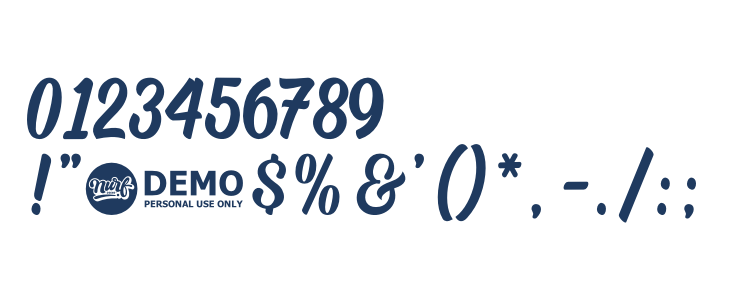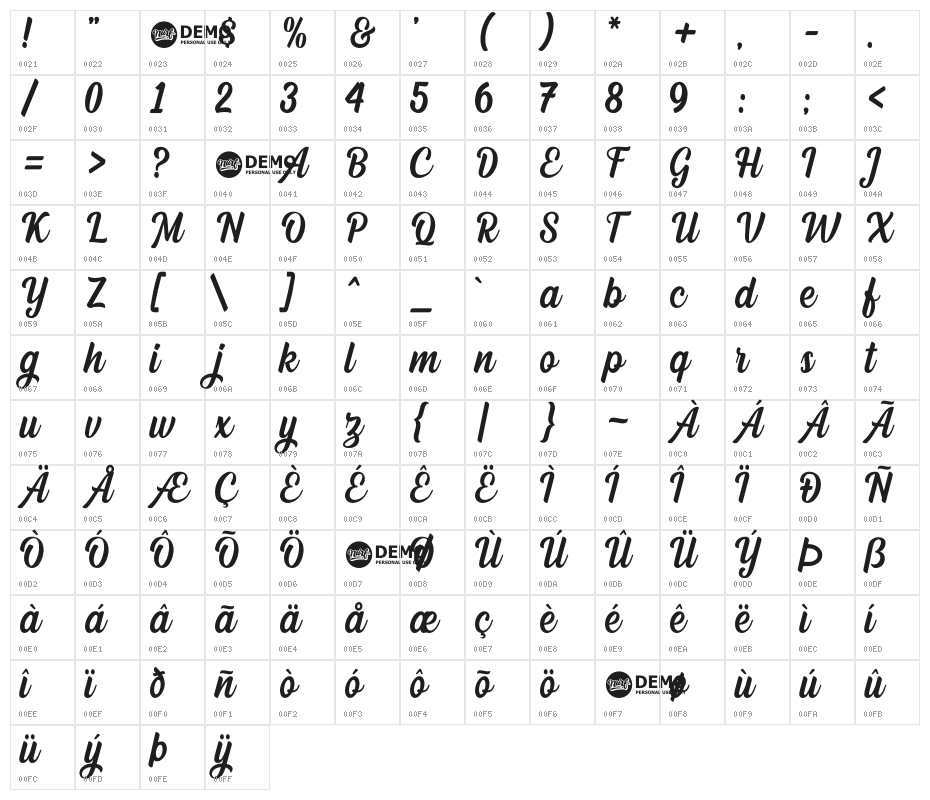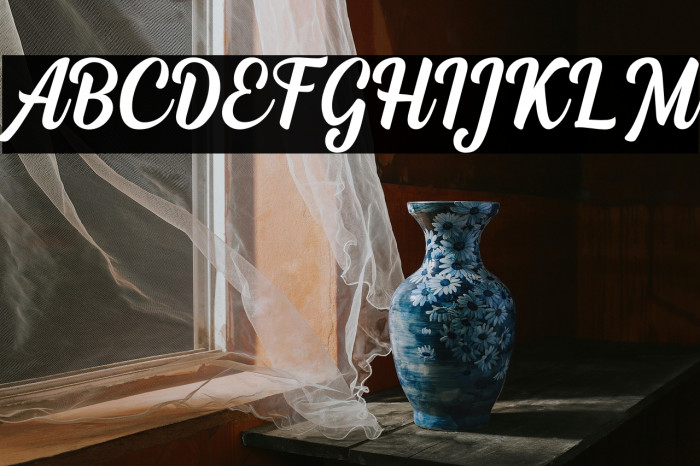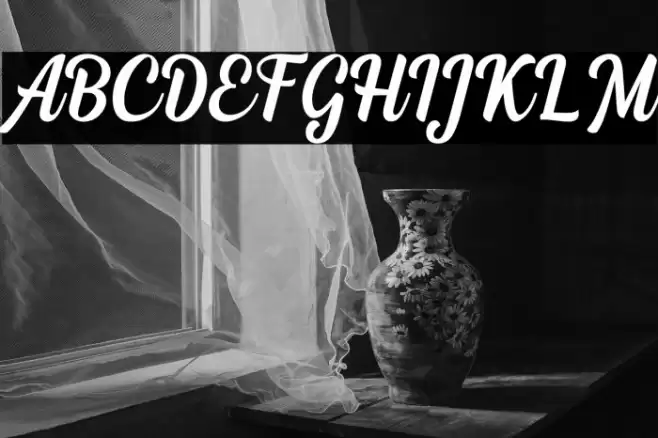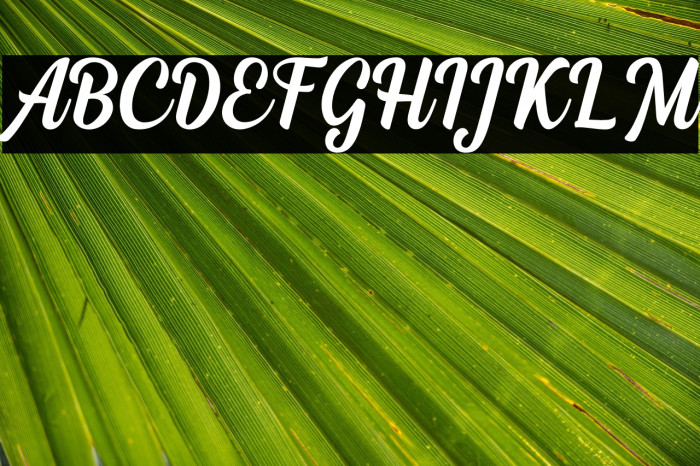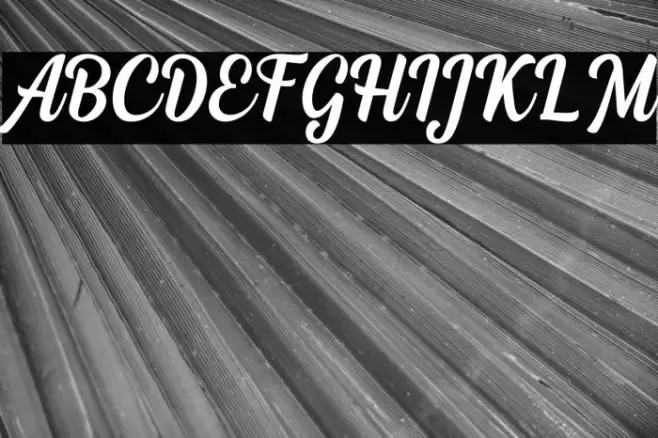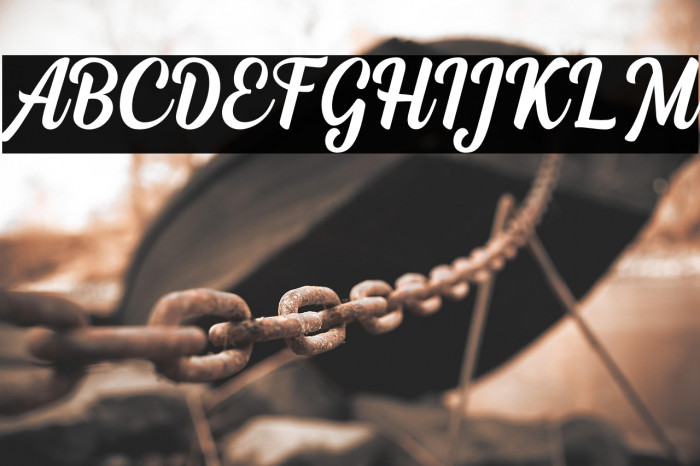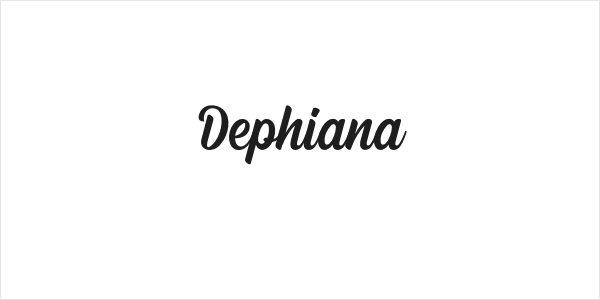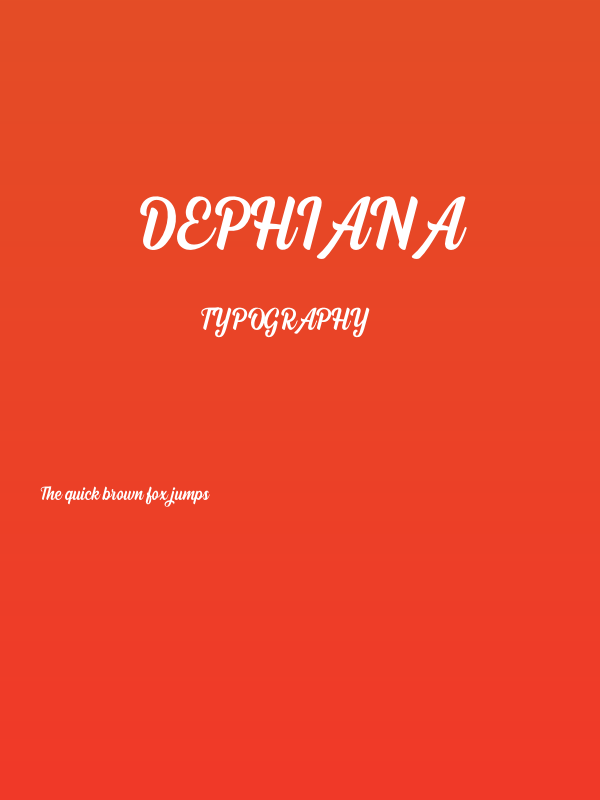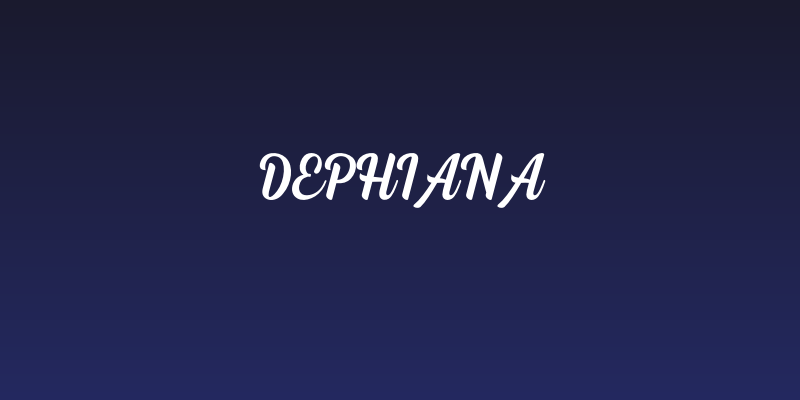
Dephiana Font
Dephiana Description
This font features a bold and expressive script style, characterized by its flowing, cursive letterforms. The uppercase letters are elegantly designed with smooth curves and a consistent stroke width, creating a harmonious and visually appealing appearance. The lowercase letters maintain a similar style, with a slightly more compact form, enhancing readability while preserving the font's artistic flair. Numbers and special characters are crafted to match the overall aesthetic, ensuring a cohesive look across all text. The font's boldness and fluidity make it suitable for eye-catching designs.